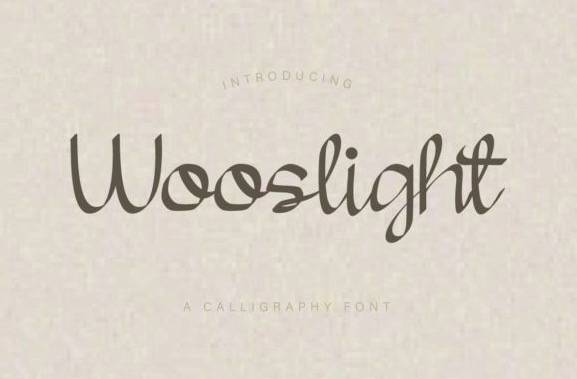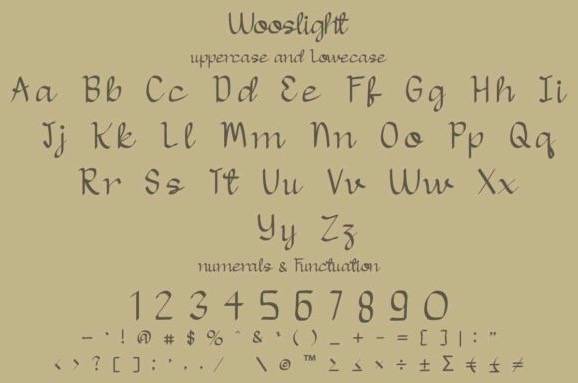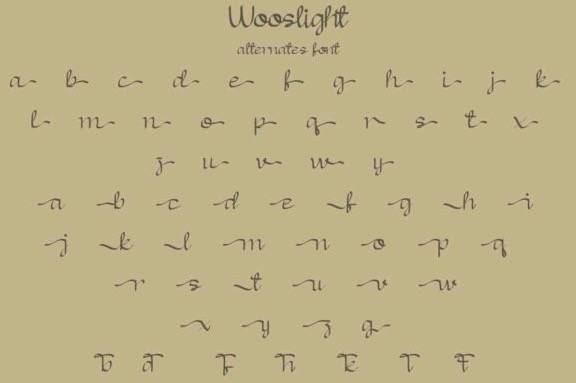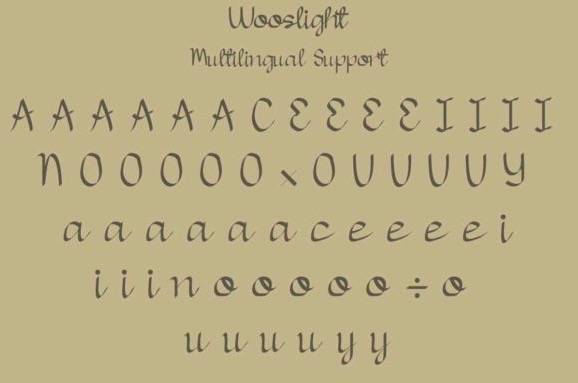
Wooslight Modern Calligraphy Font
Introducing Wooslight a Modern Calligraphy font with an elegant feel. This font will be very interesting if it is added with a variety of Alternates and also Stylistic Sets that are very suitable.
The Wooslight is a fun, casual calligraphy font, created by using a brush pen from EdricStudio. This Wooslight calligraphy script has been attentively written, it has the gentle curves to create a font which completely distinctive and original.
This Wooslight calligraphy script has been attentively written, it has the gentle curves to create a font which completely distinctive and original. This script font consists of upper and lowercase characters, punctuation, numerals and multilingual support.